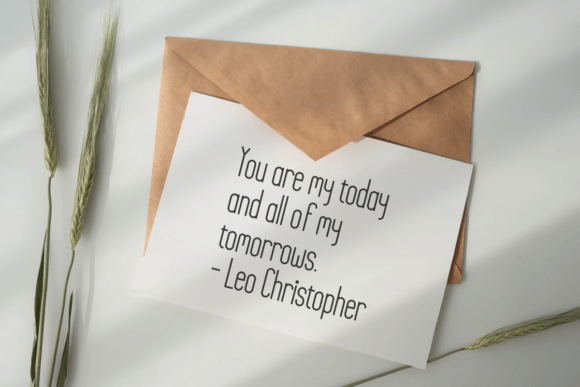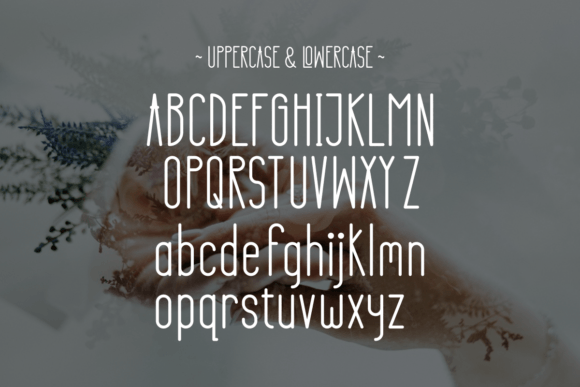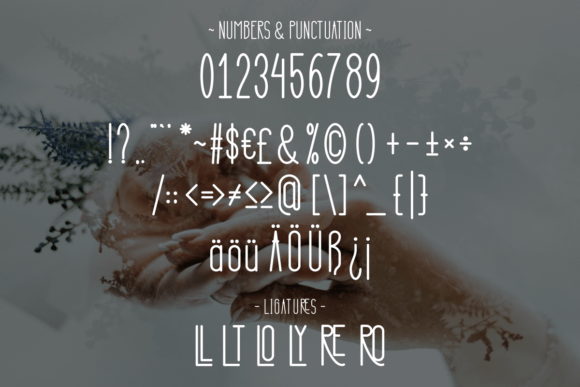
Introduction to Renita Font
Have you ever been brainstorming for hours, staring at a blank page, trying to come up with the perfect design concept for a creative project, only to have it all come together in a flash of inspiration? That’s exactly what happened to us when we discovered the Renita Font. This modern sans serif typeface is a game-changer for designers looking to add a fresh and playful twist to their designs.
As a valuable resource for designers, Renita Font offers a unique blend of simplicity and elegance, making it perfect for writing wedding invitations, cards, or any other design that needs a bit of personality. And the best part? You can download it for free, giving you access to high-quality design resources without breaking the bank.
Key Features of Renita Font
- High-quality design: Renita Font is a premium font perfect for creative projects, offering a unique and stylish look.
- Transparent background: Renita Font features a transparent background, allowing for easy layering and customization in your designs.
- High-resolution design: Renita Font is designed at 300 DPI, making it suitable for high-quality prints and digital displays.
- Unique characteristics: The font features a modern and elegant design, with unique letterforms and flourishes that set it apart from other fonts.
- Perfect for creative projects: Renita Font is ideal for use in logos, branding, packaging, and other design projects where a high-quality, unique font is required.
Honest Review: Renita Font
As a designer, I’m always on the lookout for high-quality design resources to enhance my creative projects. The Renita Font caught my attention with its elegant and modern design. I decided to give it a try and share my honest review.
- ✨ High-quality design that’s perfect for creative projects.
- ✨ Transparent background, making it easy to work with.
- ⚠️ Limited language support, which might be a concern for designers working on multilingual projects.
- ⚠️ Not as extensive a character set as some other fonts, which might limit its versatility.
Overall, I’m impressed with the Renita Font. Its modern design and free download option make it a great resource for designers. While it has some limitations, it’s still a solid choice for creative projects. If you’re looking for a high-quality font with a transparent background, the Renita Font is definitely worth considering.
Tips for Getting the Most Out of Renita Font
To maximize the use of the Renita Font, experiment with different font sizes, colors, and combinations to create visually appealing designs. Additionally, use the font in conjunction with other design resources to enhance your creative projects.
The Renita Font is suitable for a variety of creative projects, including graphic design, digital art, and marketing materials. Its high-quality design and transparent background make it an ideal choice for designers seeking a versatile and professional font.
The Renita Font is available in high-resolution formats, making it suitable for use in high-quality designs. The font is designed to be scalable, so you can use it for both low- and high-resolution designs without losing any quality. Additionally, the font’s transparent background allows for seamless integration with other design elements.